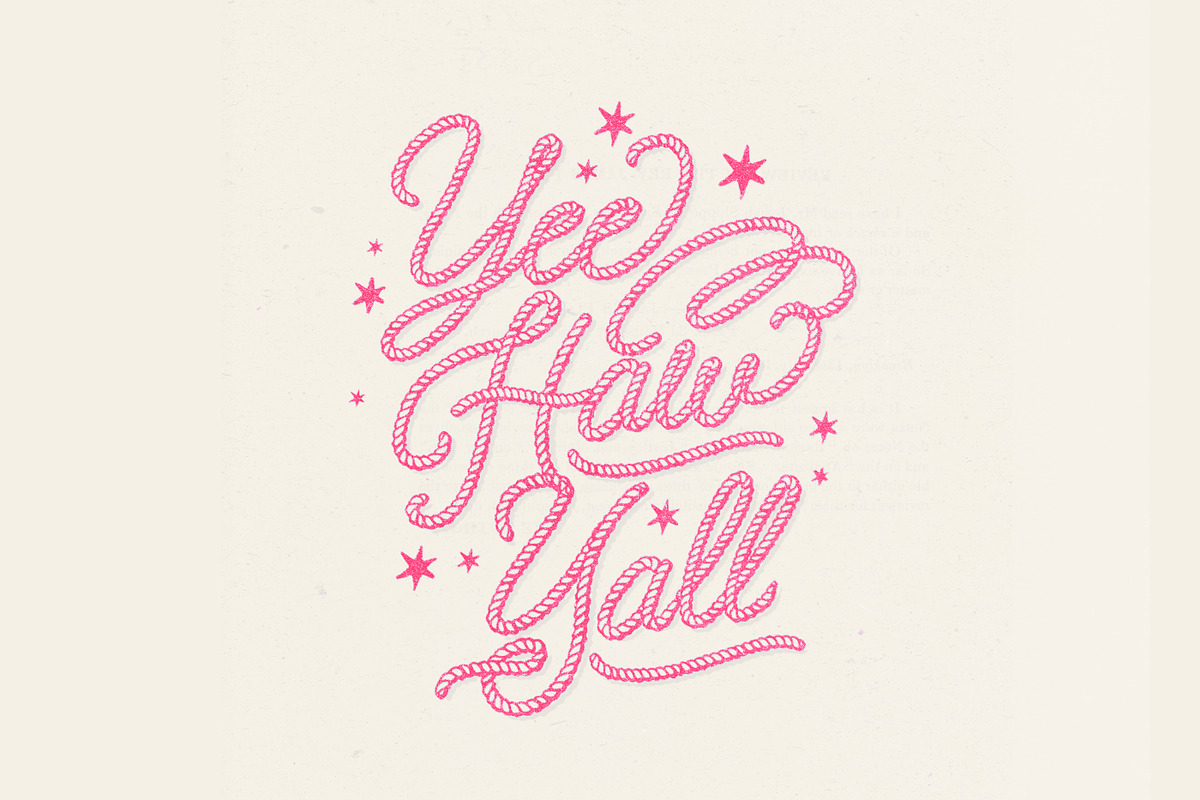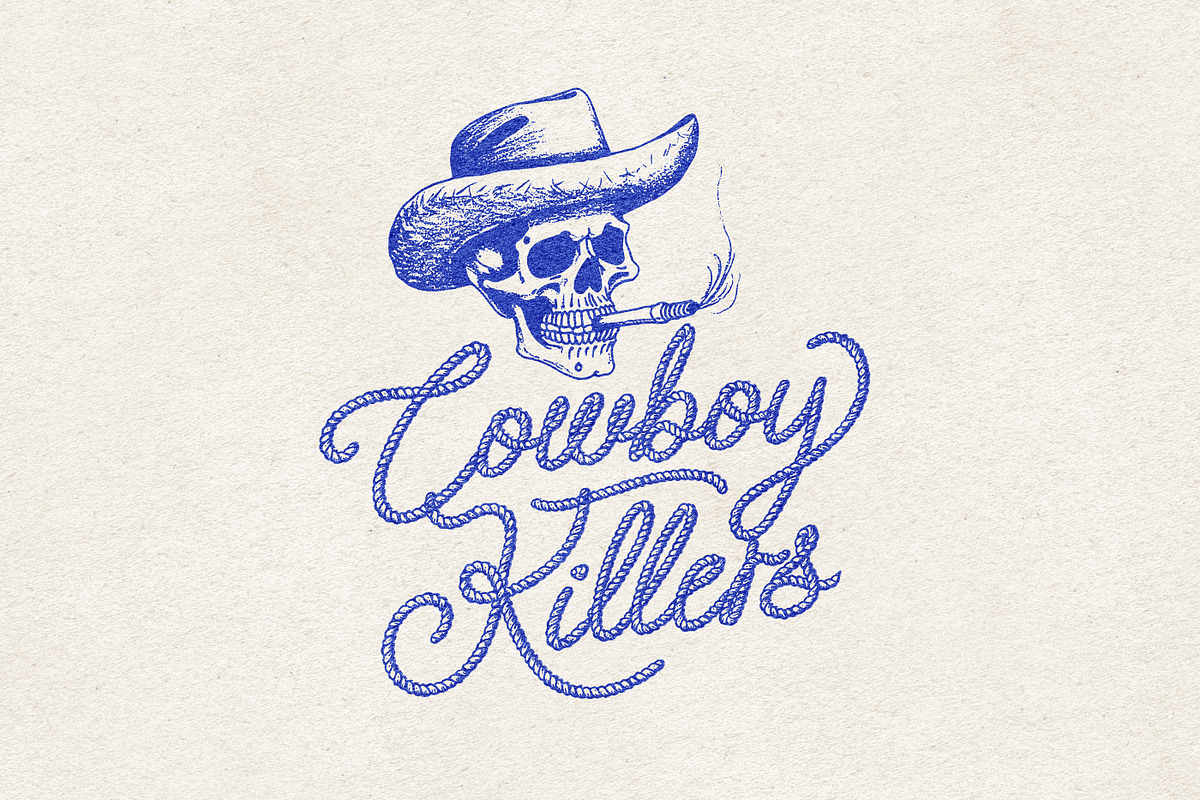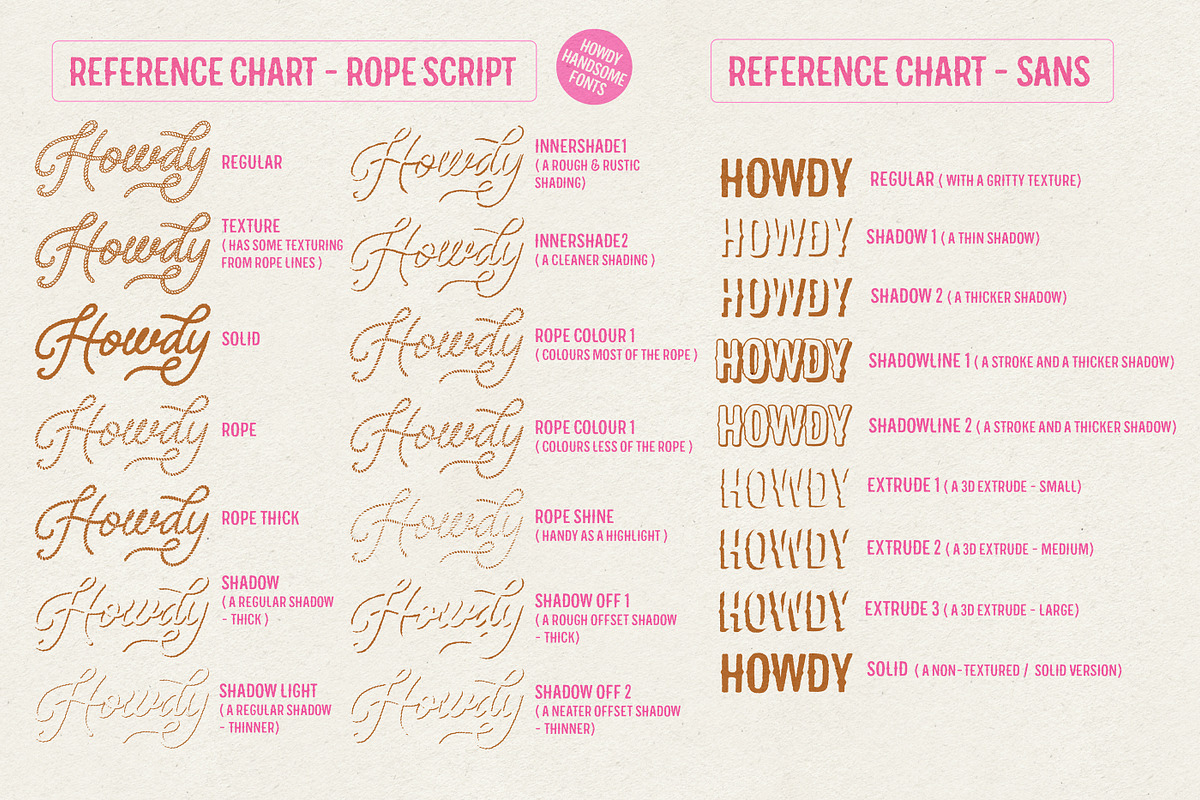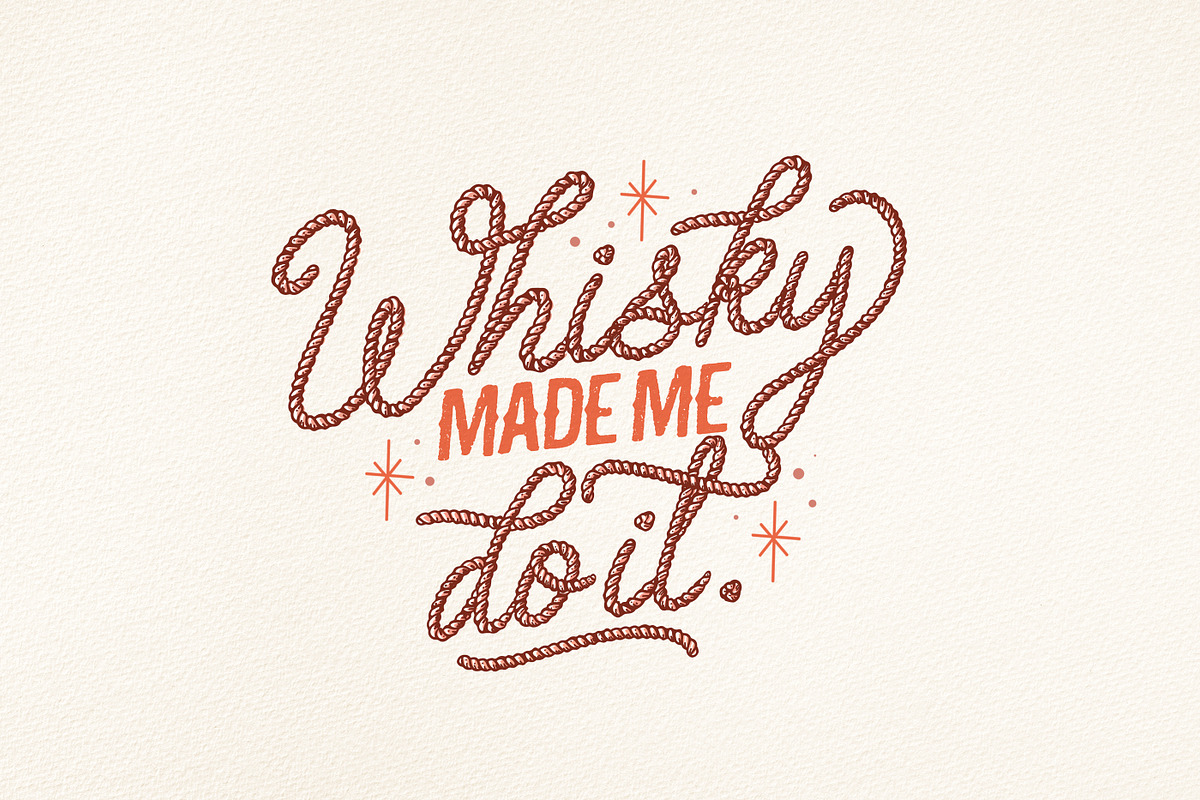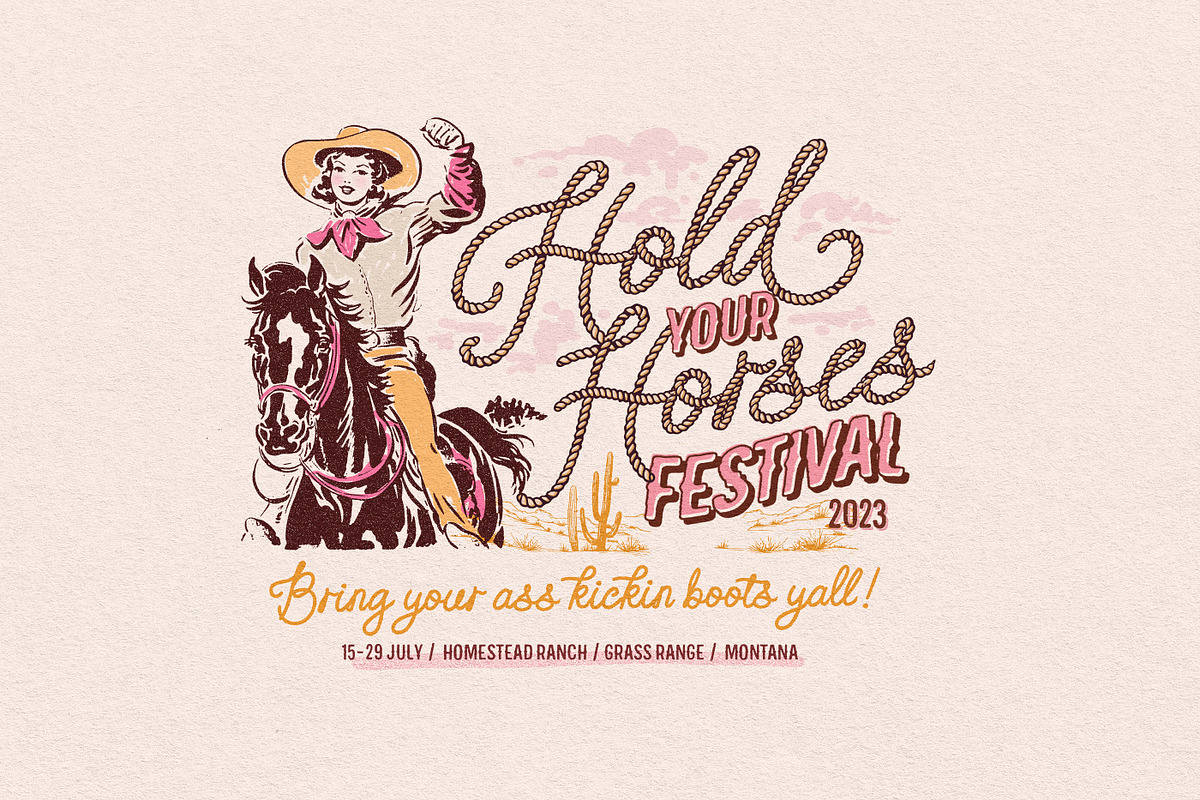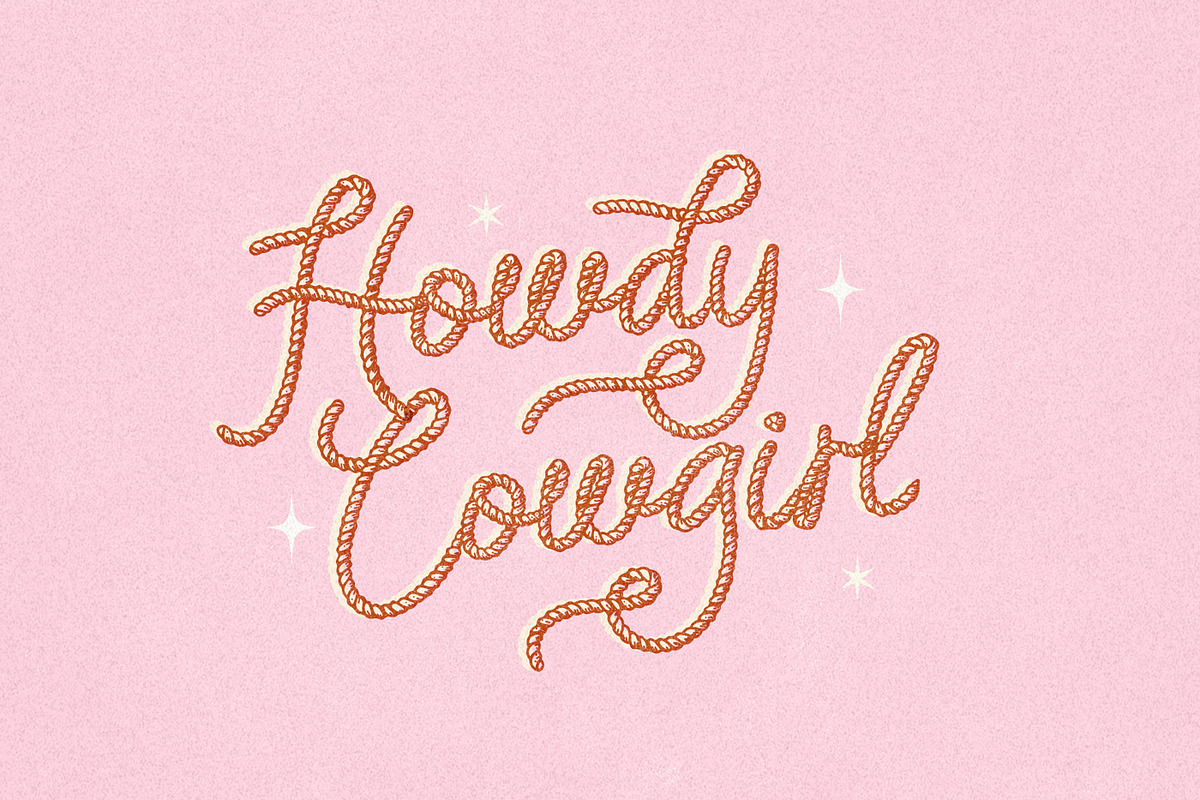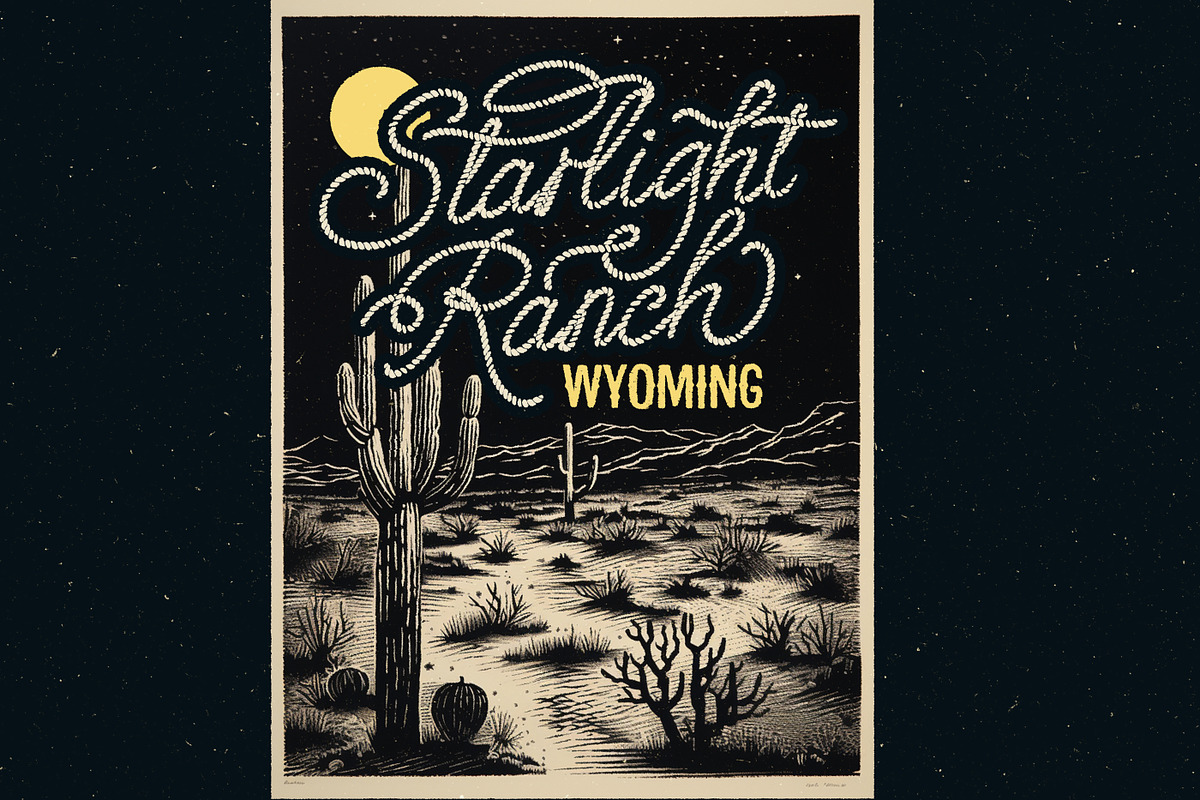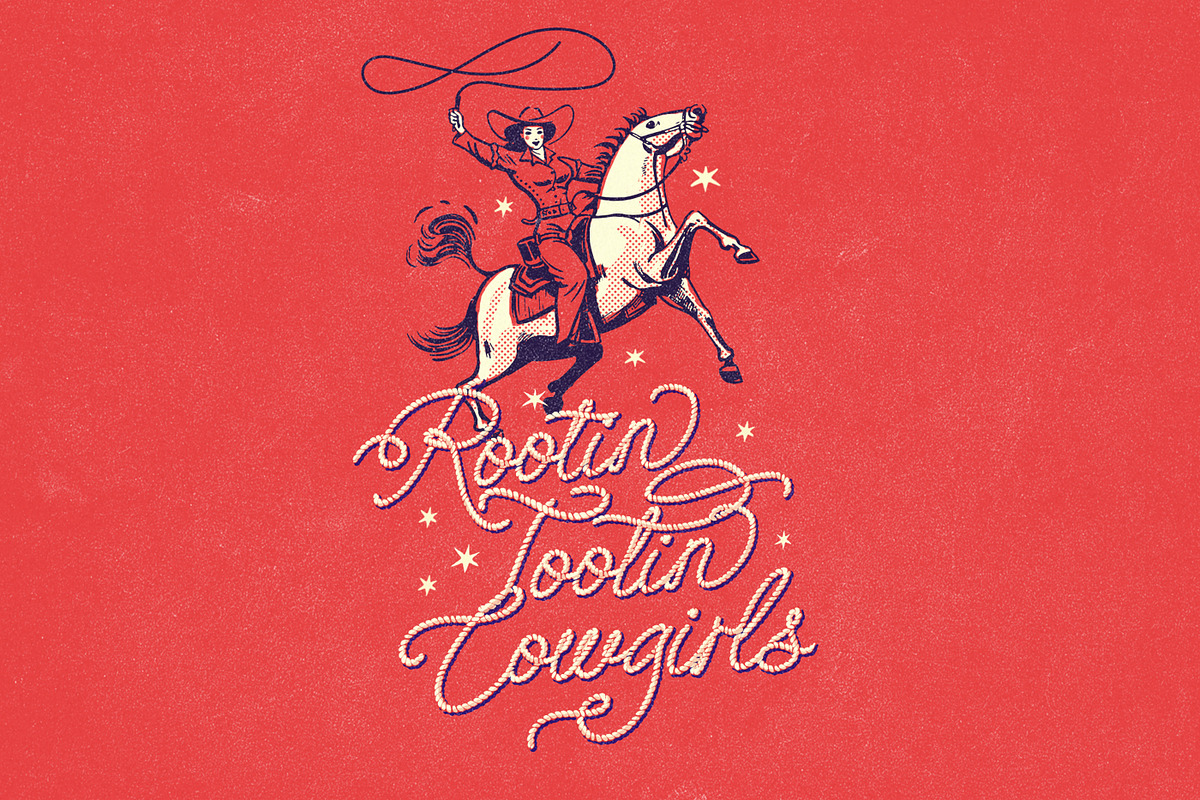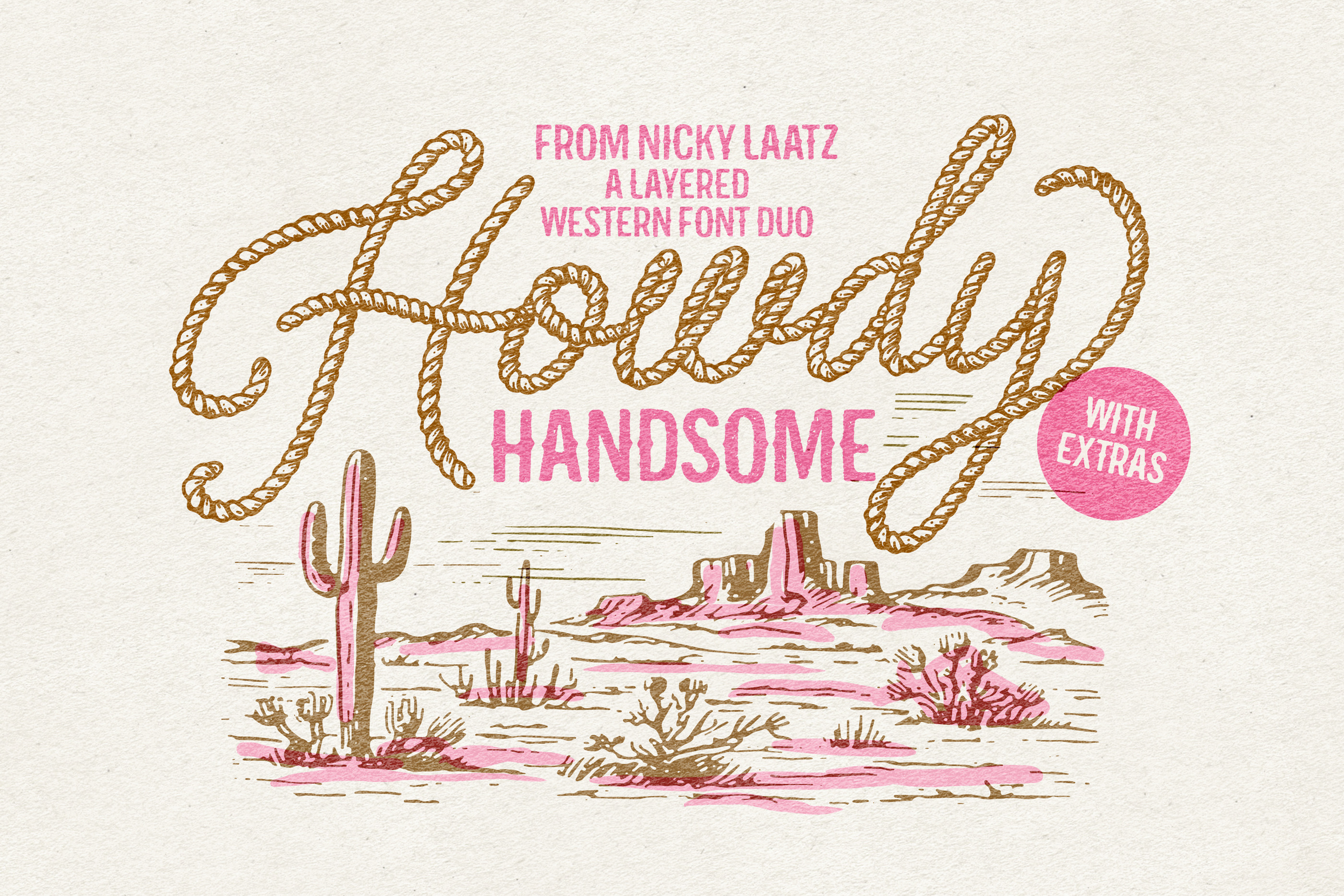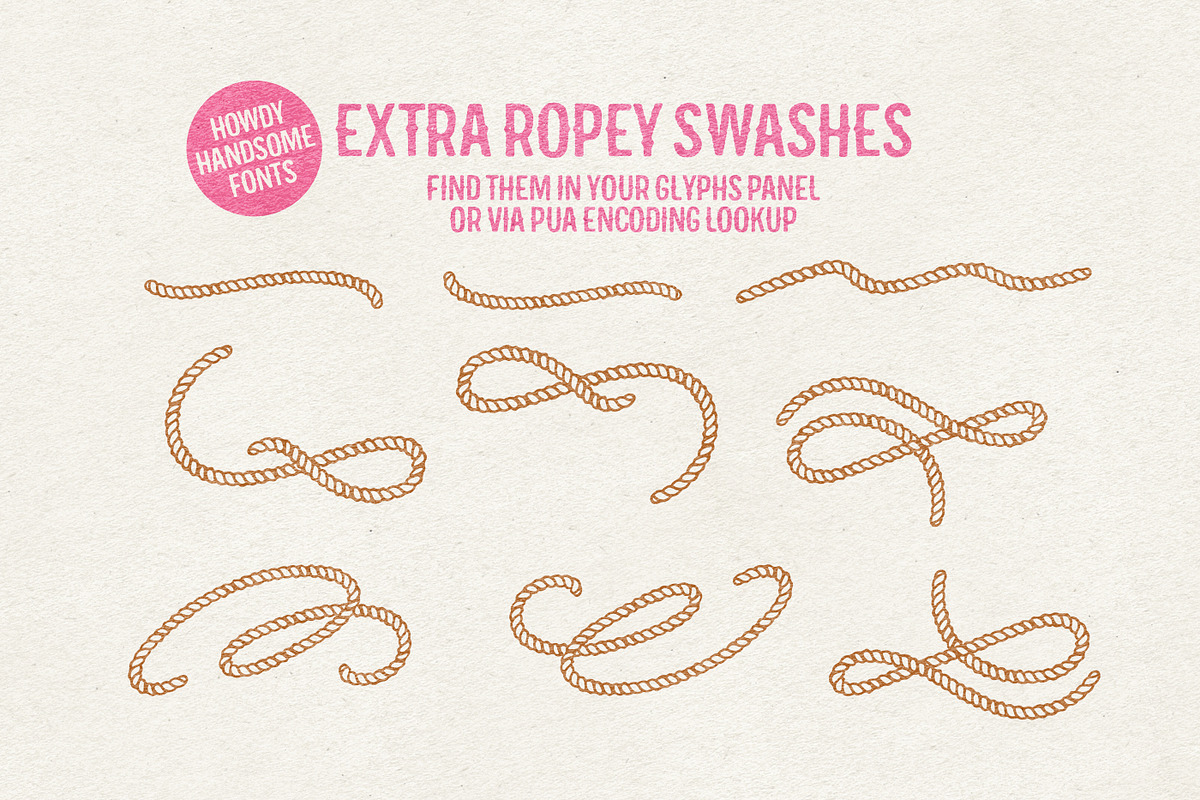
Howdy Handsome Layered Font Duo
Fact: The world needs more cowboys..... and more cowboy fonts :)
Say hello to Howdy Handsome - A Layered Western Font Duo with endless possibilities.
**The Howdy Handsome Set consists of: **
A Splendiferous Rope Script, with 17 Layering/Style Options, it also has a large selection of Opentype alternate characters, ligatures and cowboy swashes to take your cowboy type to the next level. An Upright version which is less oblique is included too.
A Complimentary **All-Caps Western Sans Serif **with little median spurs, with 9 Layering/style options. A Slanted/oblique version is included also.
Bonus 'Ranchy Extras' - a little collection of Western Graphics Vectors to get your creative juices flowing ( See the 'Ranchy Extras' preview) - Available as Illustrator File, EPS file, Layered Photoshop file,and also individial PNGs and SVG files.
A Handy Refererence sheet for you to find the styles you want quickly :)